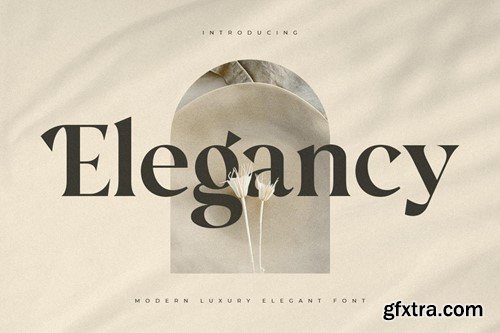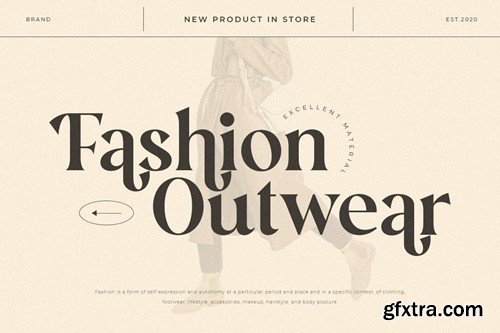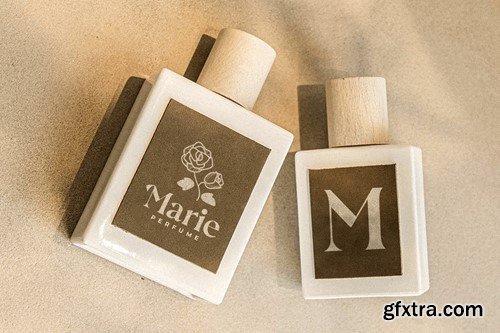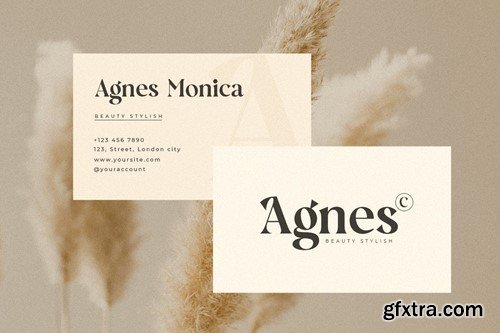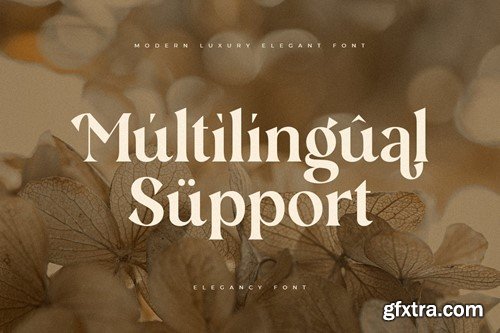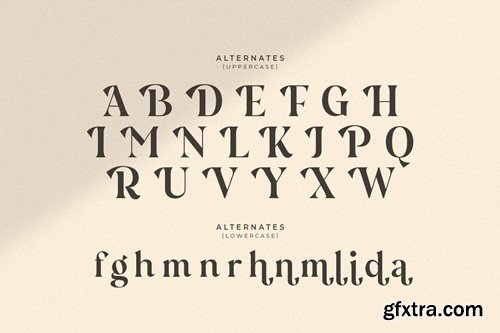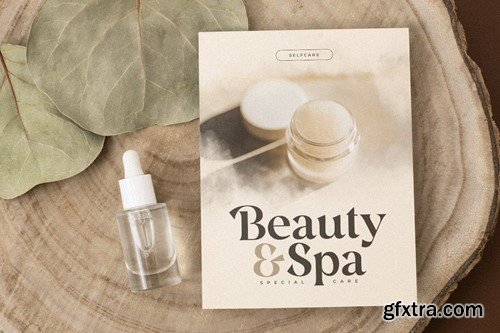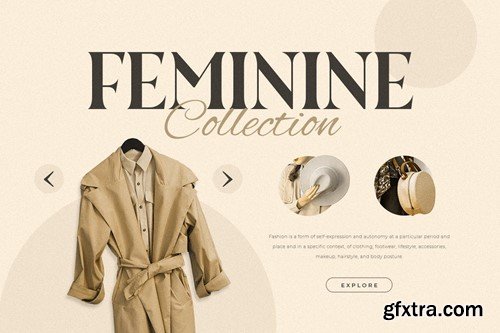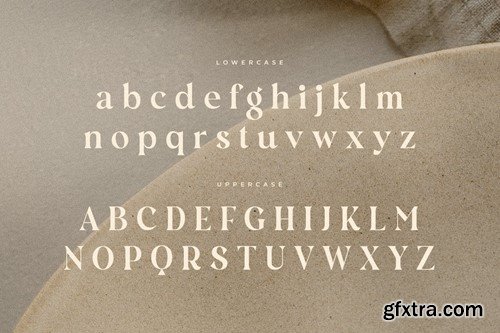
优雅 - 现代奢华 高级字体 FEBZG5L
Elegancy - Modern Luxury Elegant Font FEBZG5L
Elegancy - Modern Luxury Elegant Font
A Serif font that we created special for luxury branding needs, with extra alternates in unique shape will be ready to add value of your brand. It so nice to leverage designer or product owner that need solutions to make their design look more Luxury and modern. And specially for Elegancy font, We prepared any alternate characters to help you create unlimited variations for your creative needs.
Elegancy Modern Luxury Elegant Font ready with:
• Any options to get creative variations (combination of Alternates)
• Preview as a inspirations that you can do with Elegancy font
• Ready with Lowercase and Uppercase characters